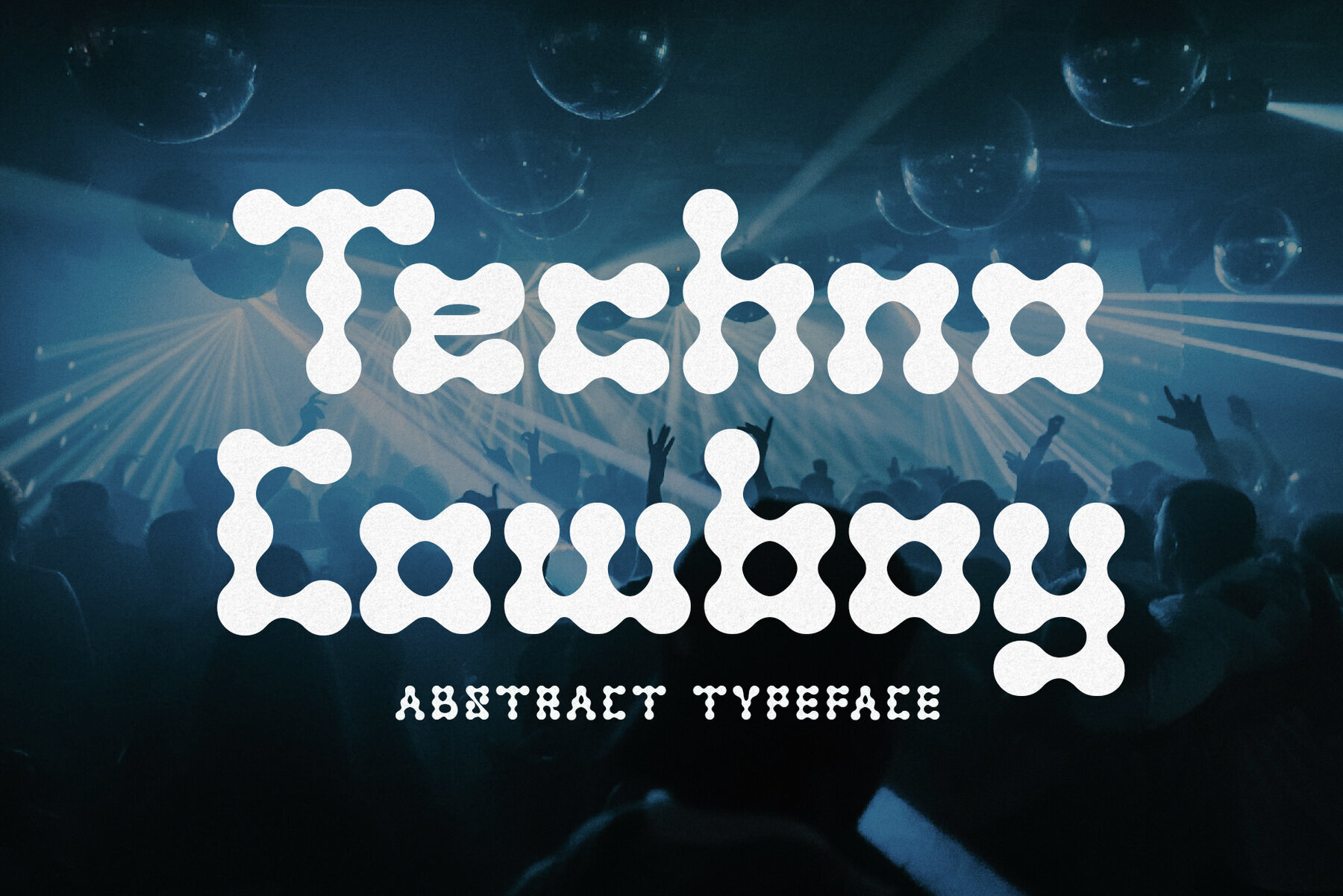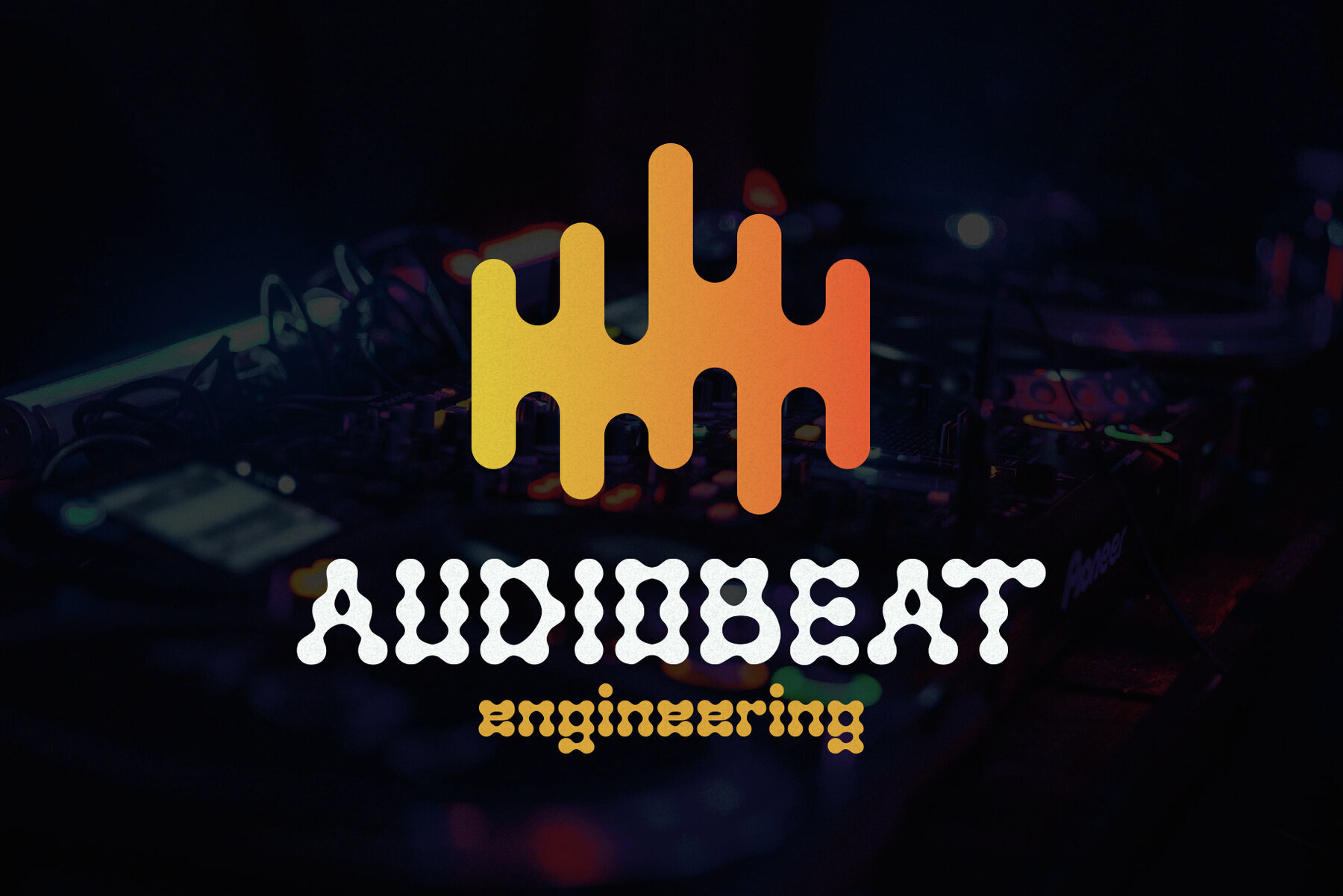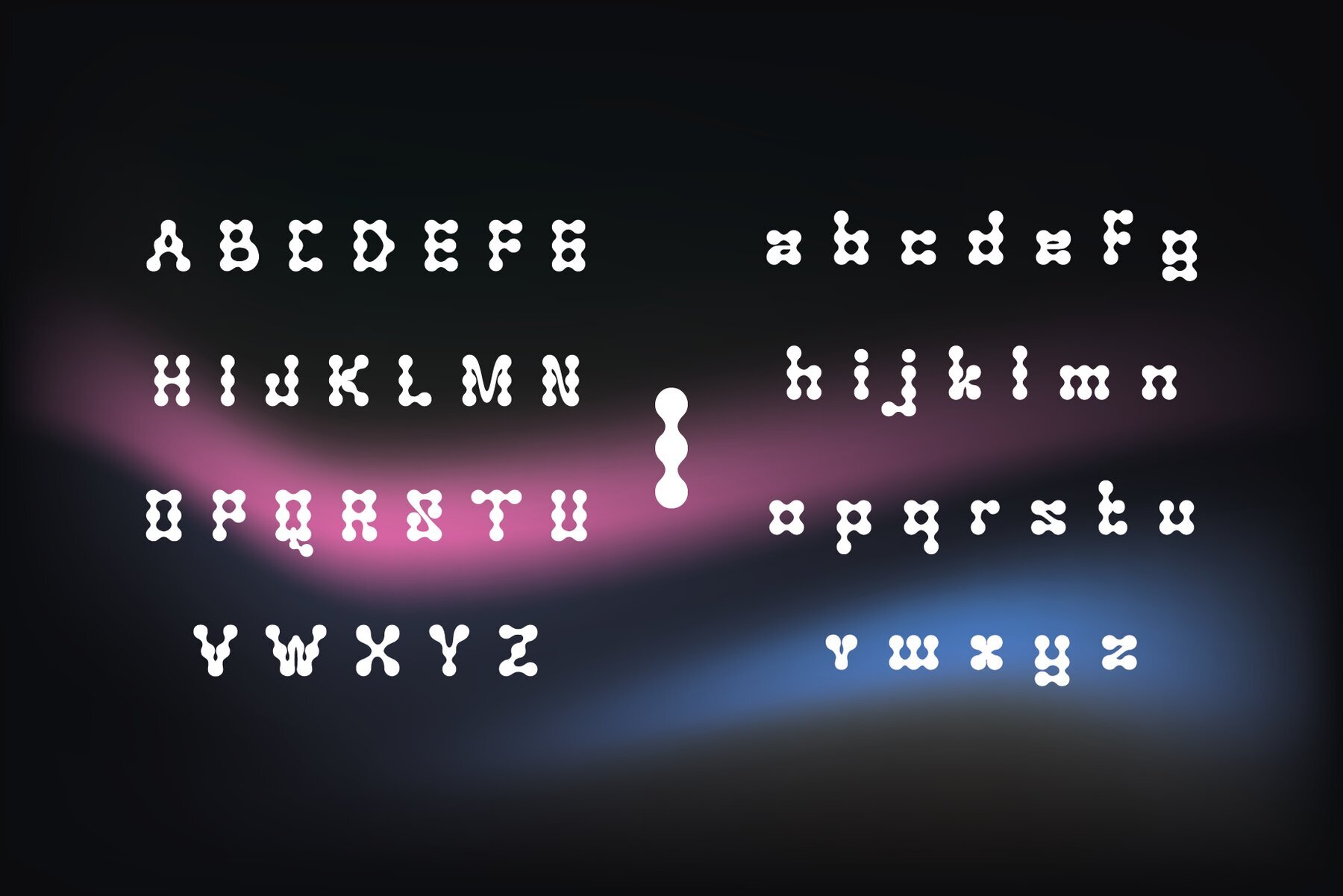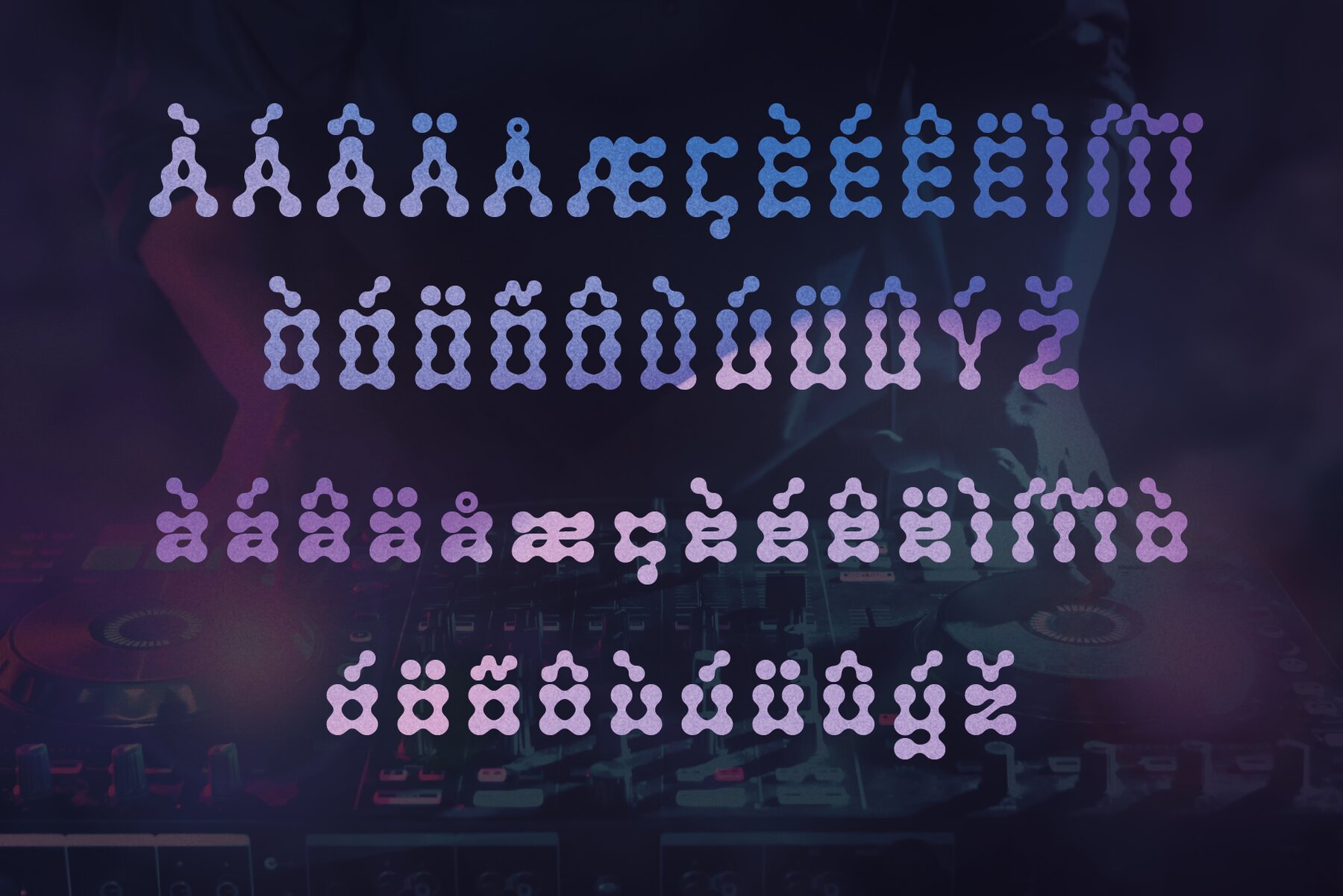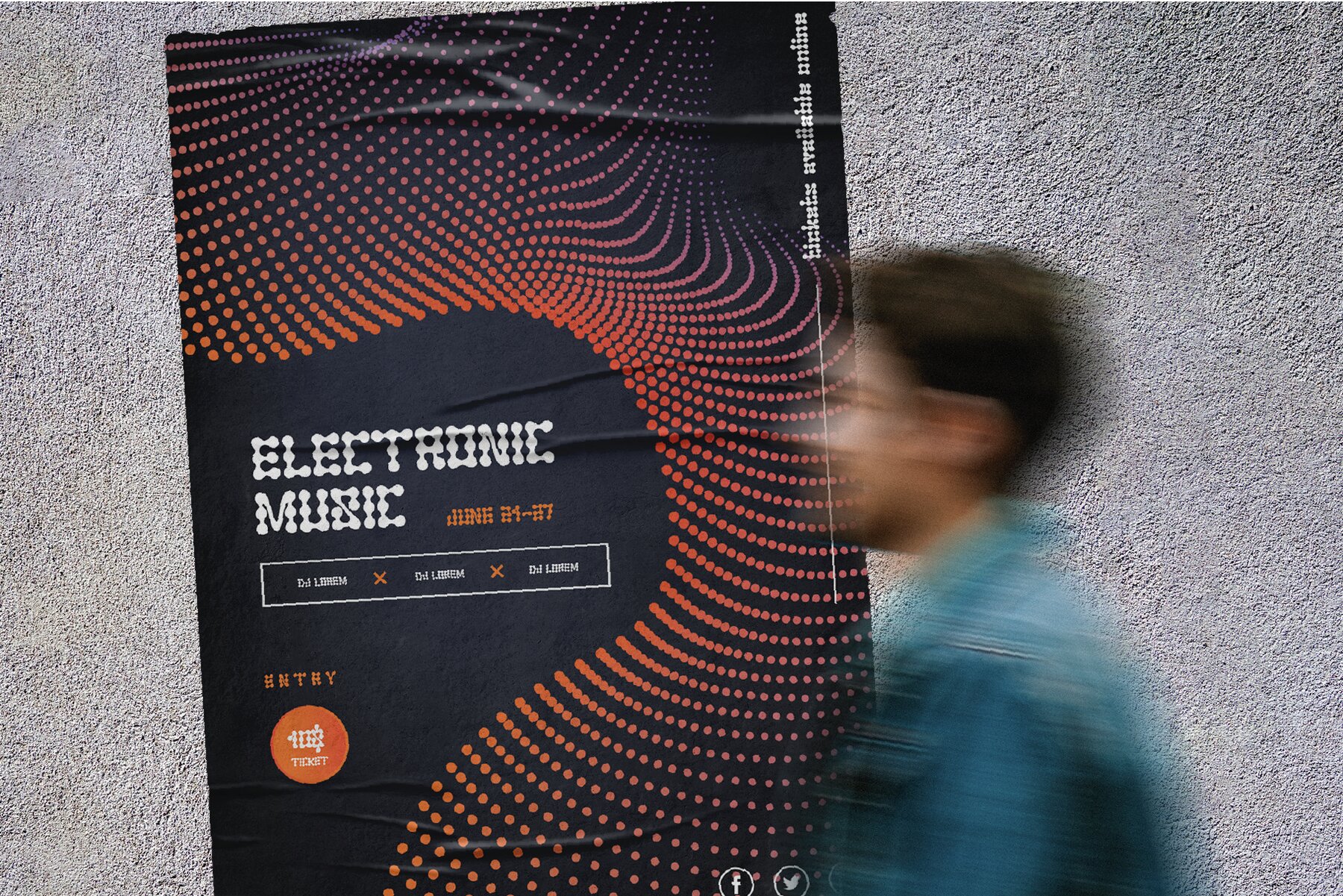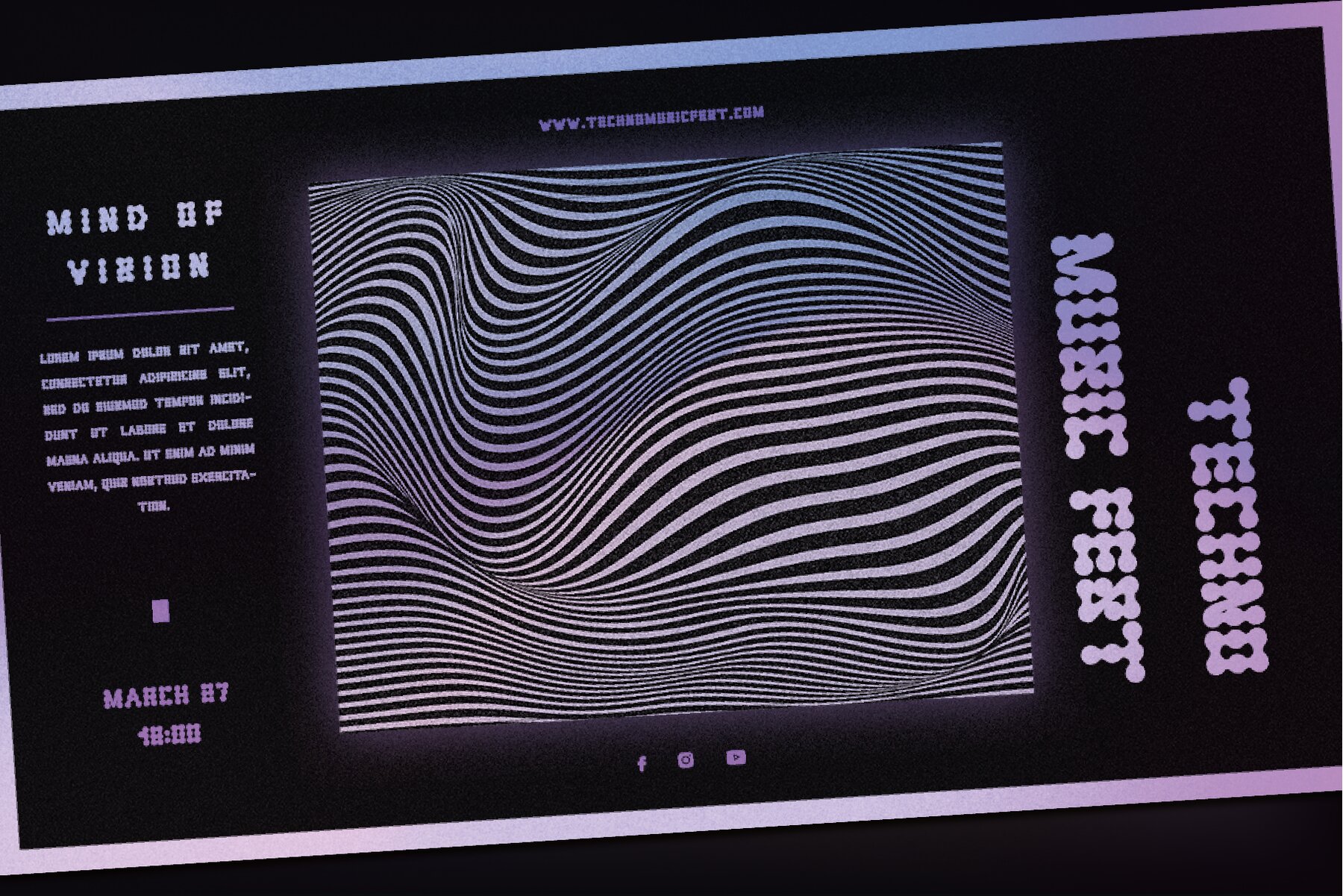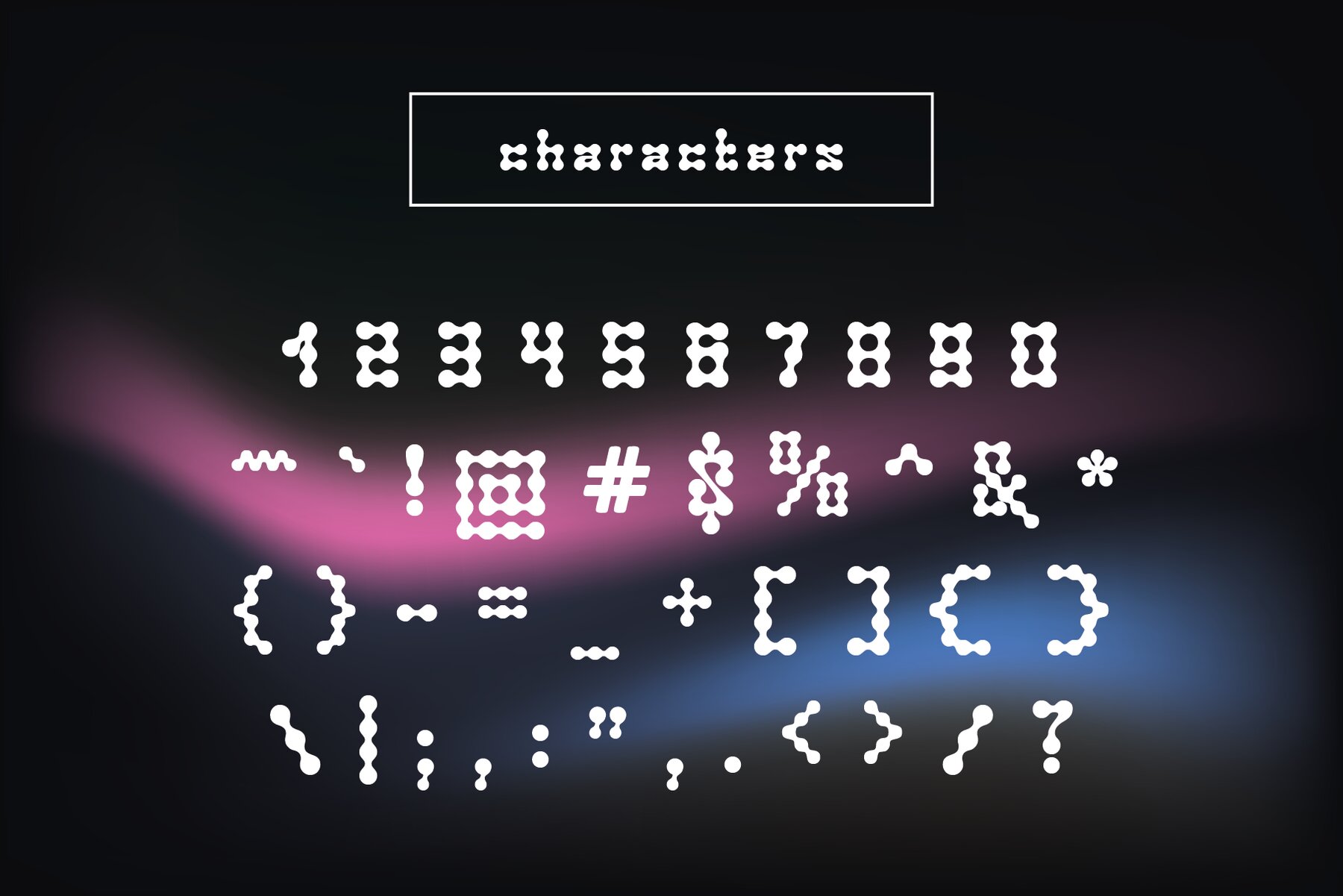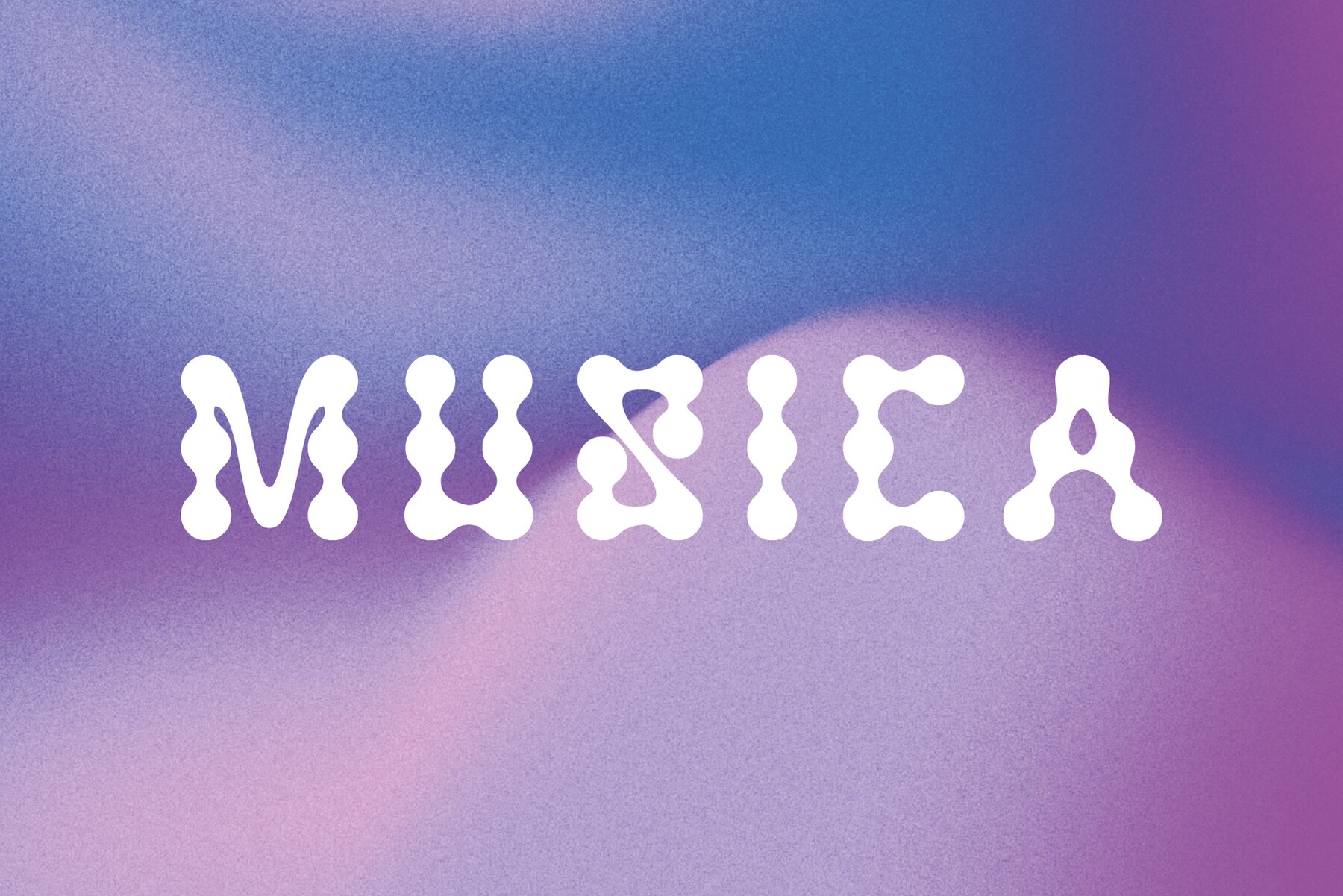
Techno Cowboy Font
Techno Cowboy Regular
Introducing Techno Cowboy, a modern techno display font with multilingual support. Techno Cowboy is great for creating eye-catching logos, headlines, ads, posters, web design, print, motion graphics, apparel and much more. If you’re looking for a futuristic font that packs a punch, then Techno Cowboy is for you.